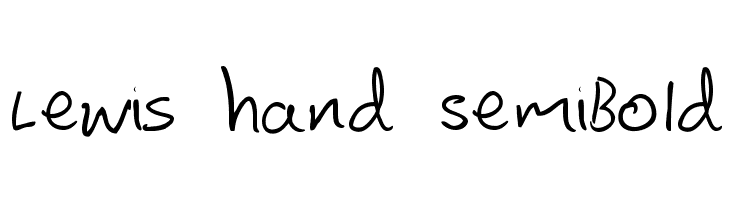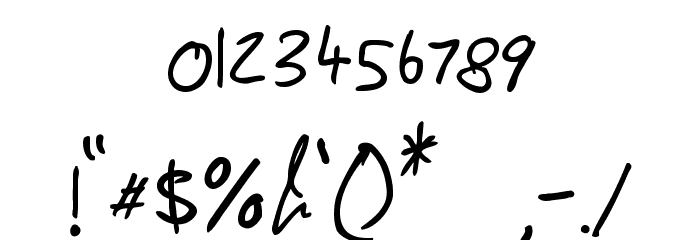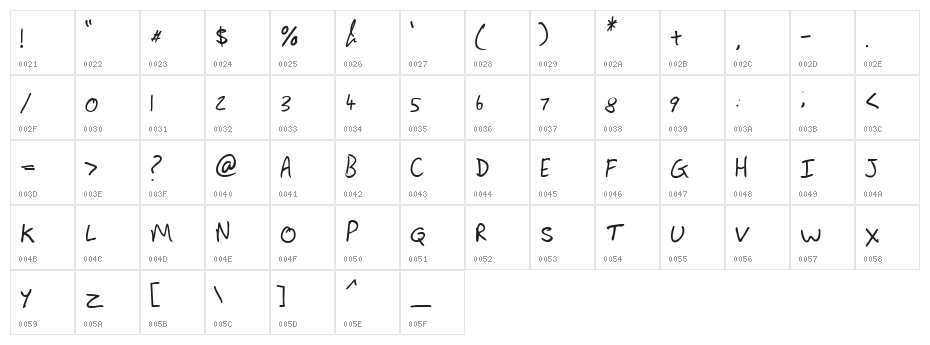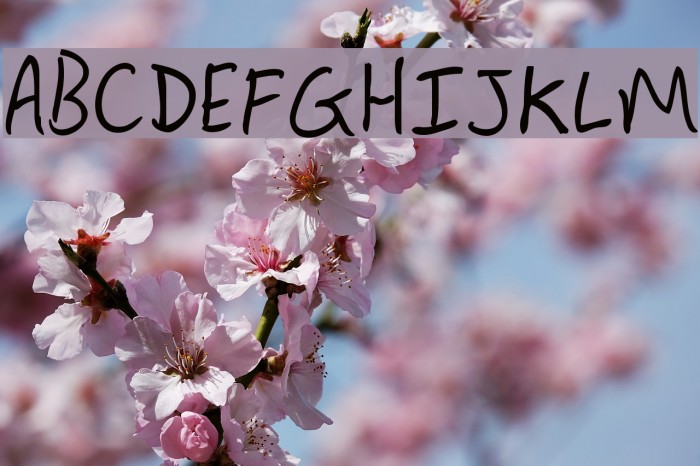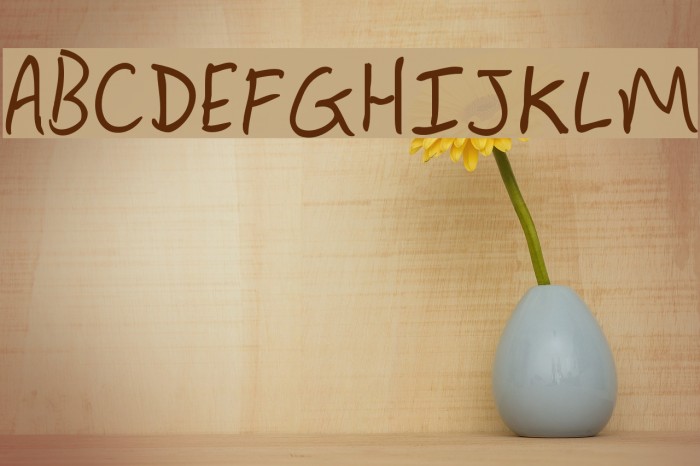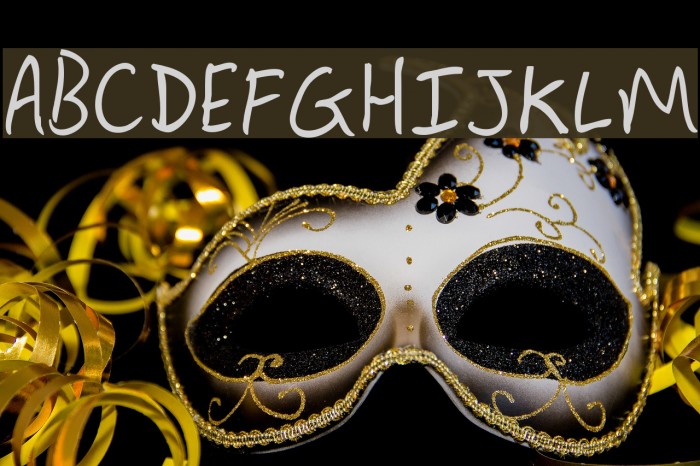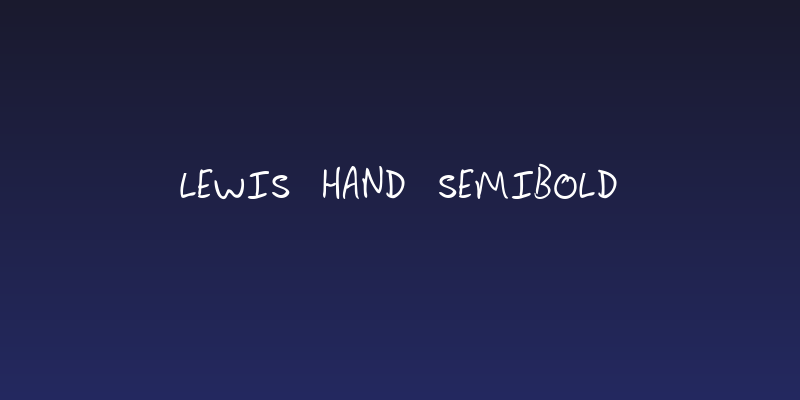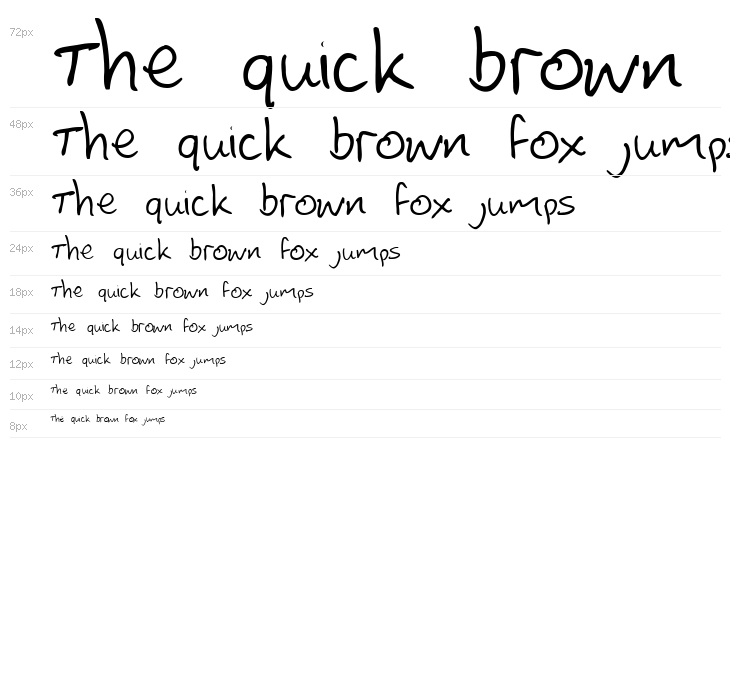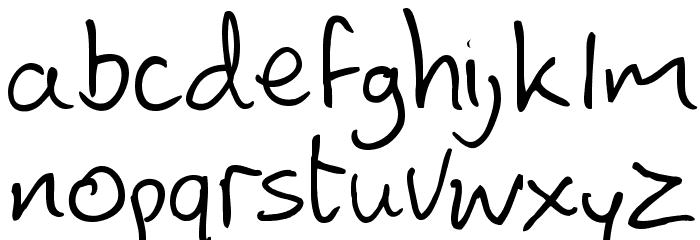
Lewis hand SemiBold Font
Lewis hand SemiBold Description
This font features a playful and casual handwritten style, characterized by its fluid and organic strokes. The letters are slightly irregular, giving it a personal and informal touch, reminiscent of natural handwriting. The uppercase and lowercase letters maintain a consistent style, with rounded edges and a slight slant, enhancing its approachable and friendly appearance. The numerals and special characters are crafted with the same attention to detail, ensuring a cohesive look across all characters. This font's unique charm makes it suitable for projects that require a personal or creative flair.